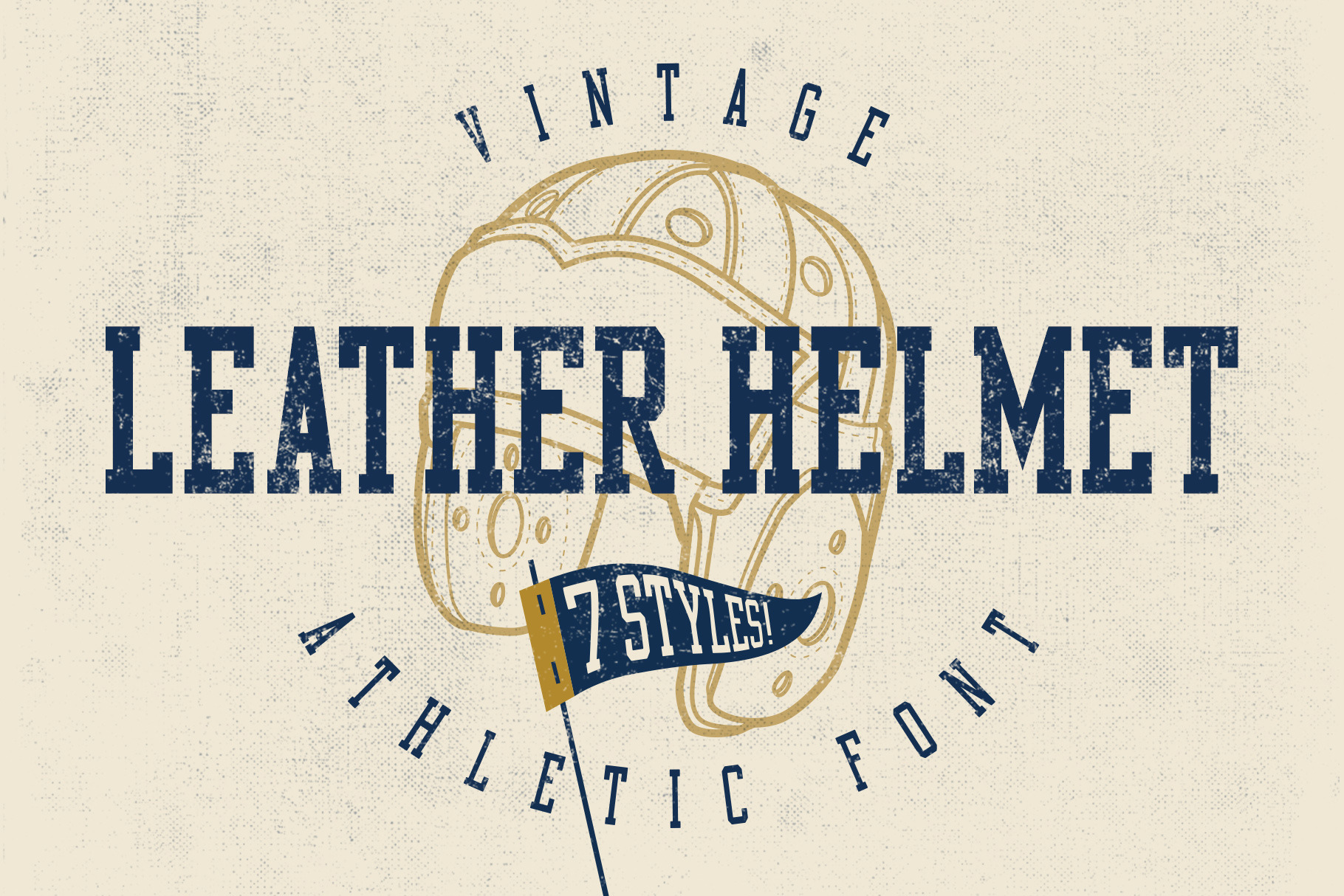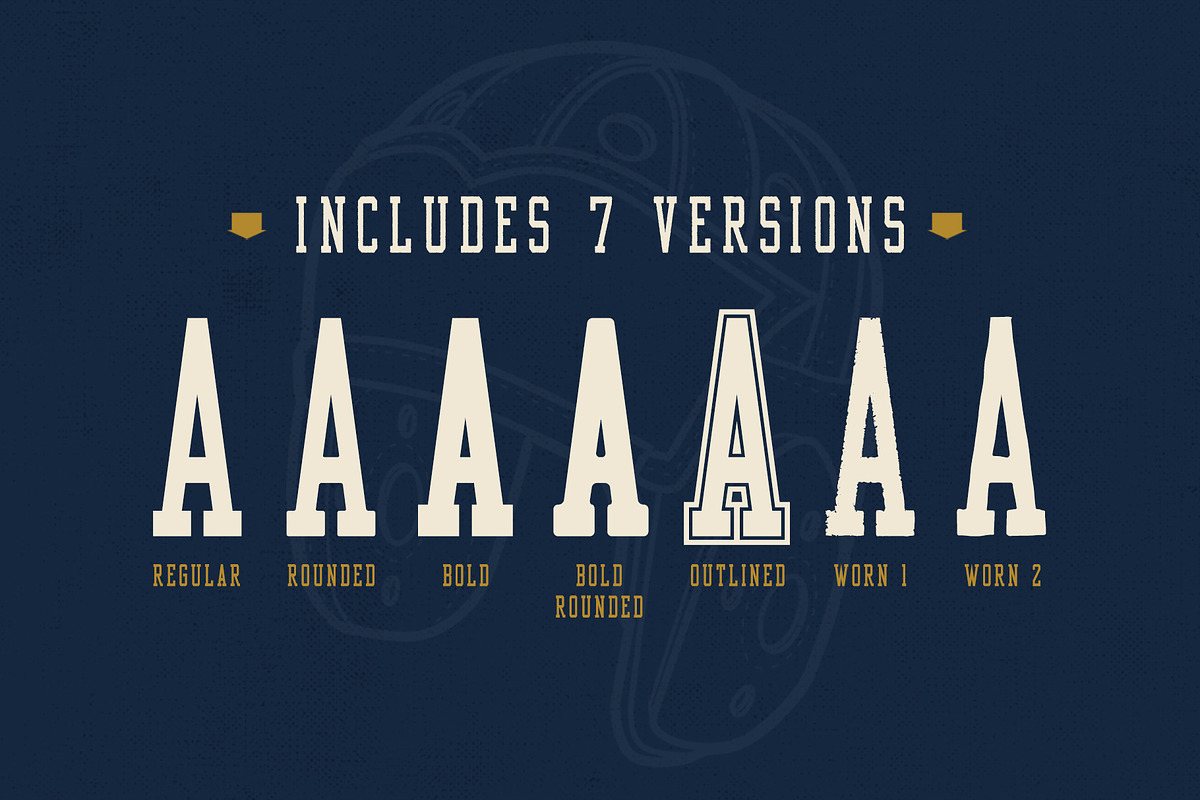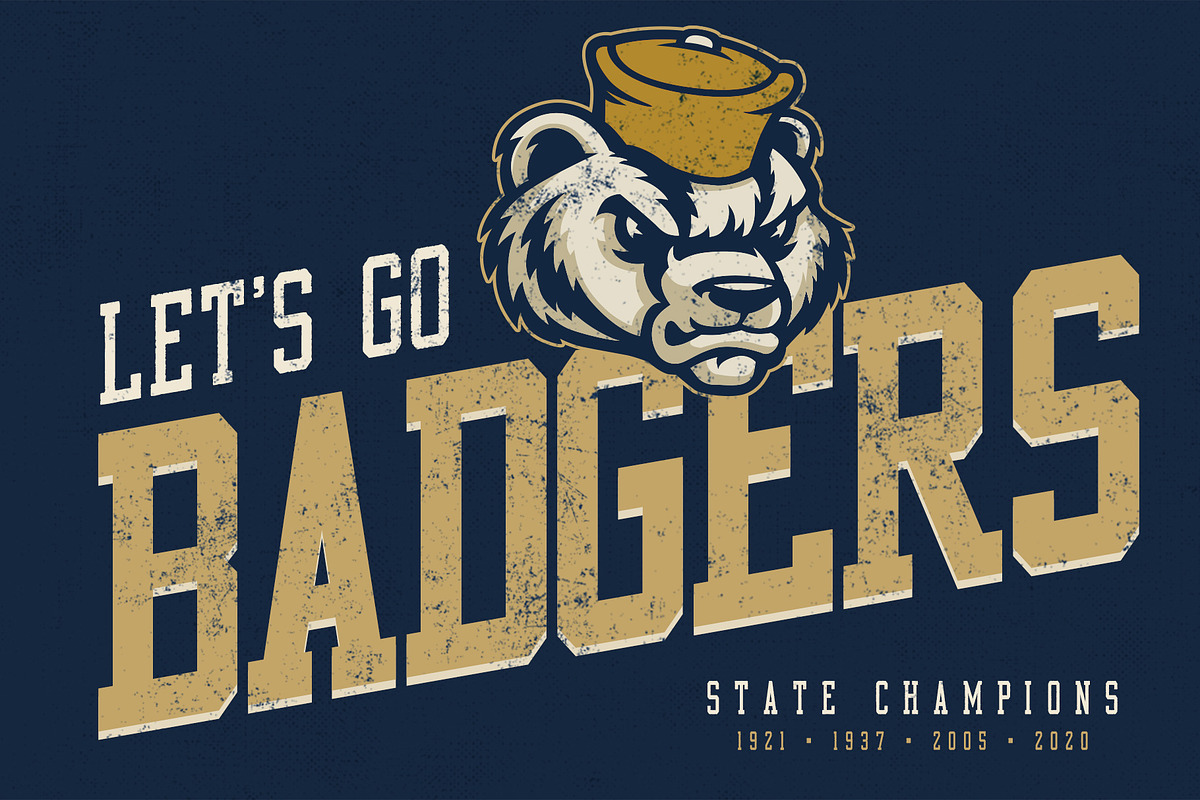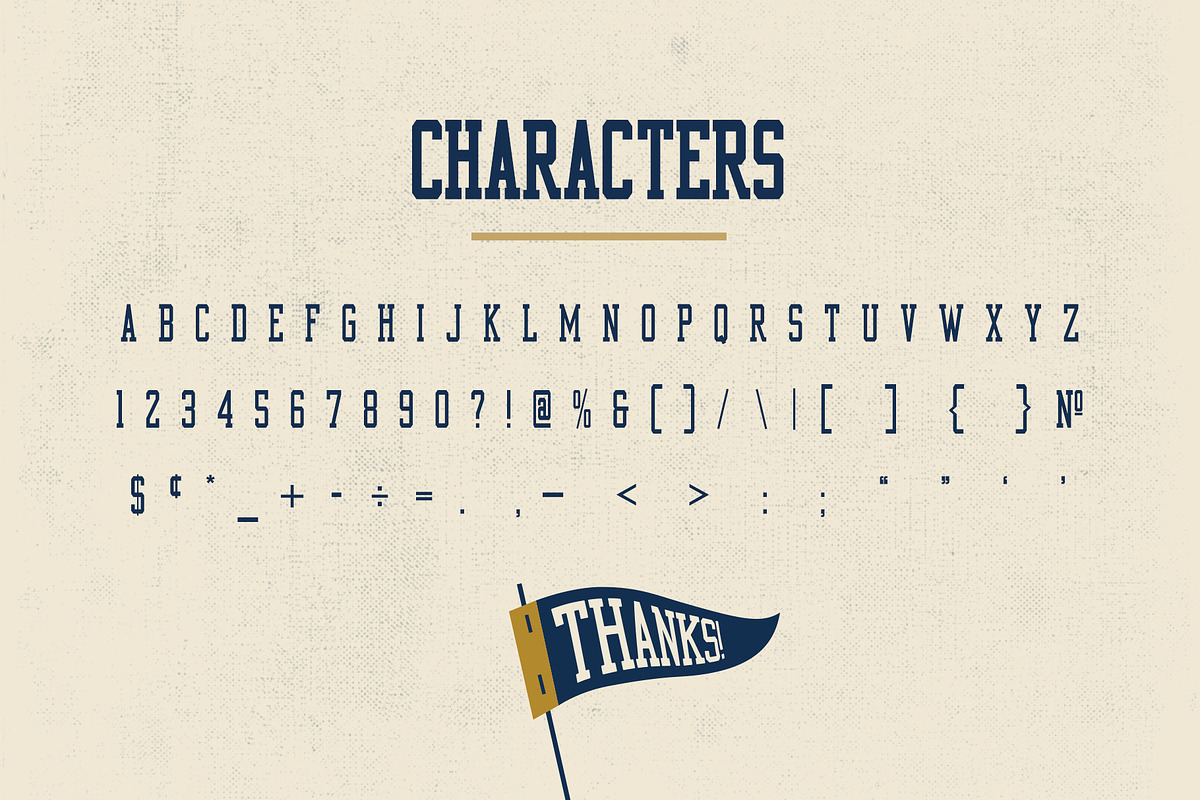
Leather Helmet Athletic Font
Leather Helmet font is vintage in every sense of the word. No frills with this one. It's bold, simple and not quite perfect...by design. Cuz that is how things were back in the day – leather helmets and no concussion protocols :) Font includes 7 different versions - Regular, Rounded, Bold, Bold Rounded, Outlined, and two Worn versions. This font was designed specifically as the work-horse font to be used for all the city, state and school names in my Vintage Mascot vector pack. Leather Helmet is actually included in that pack as an extra bonus.